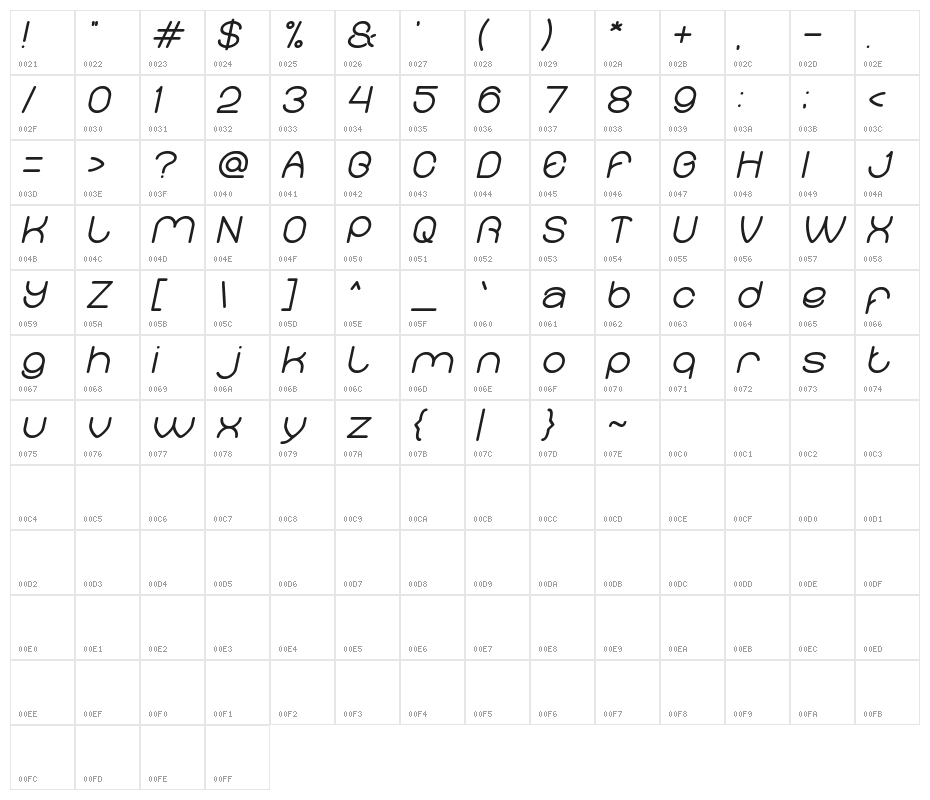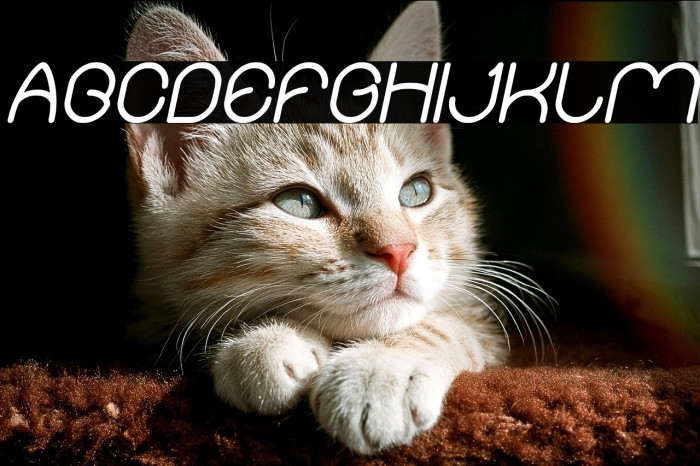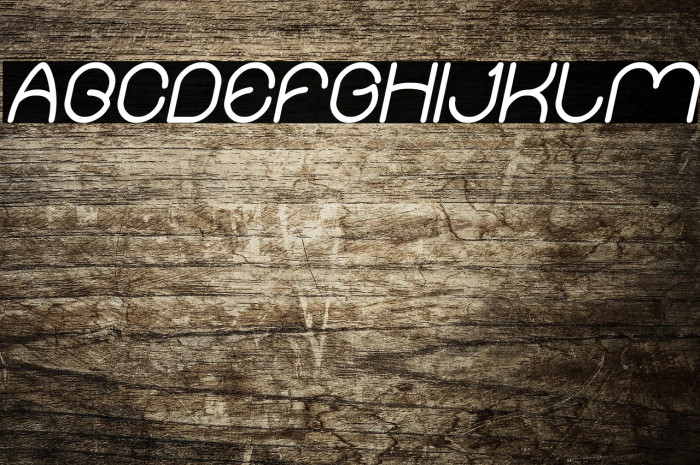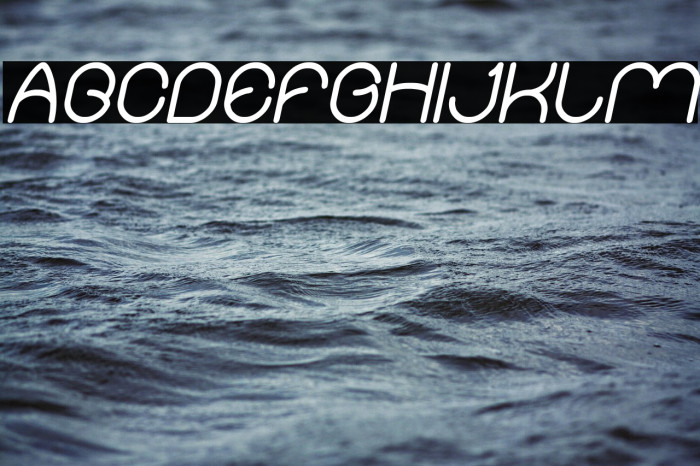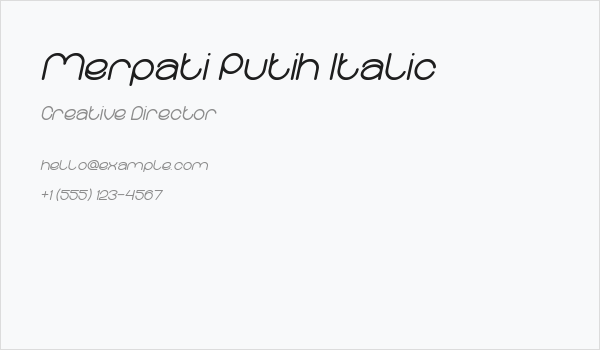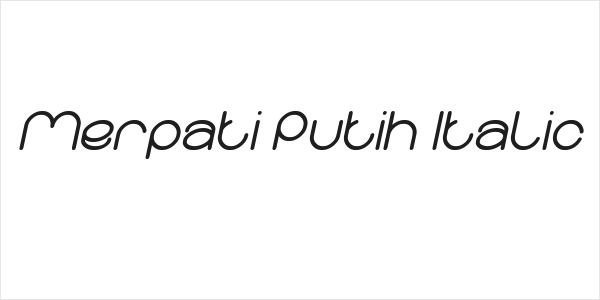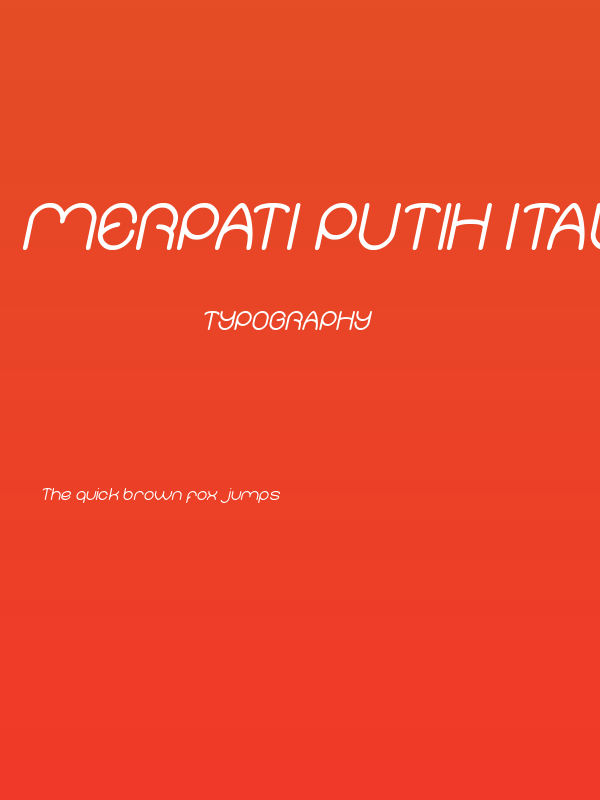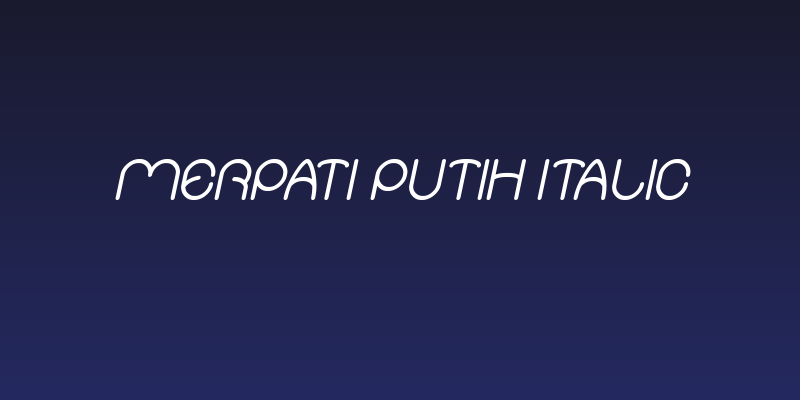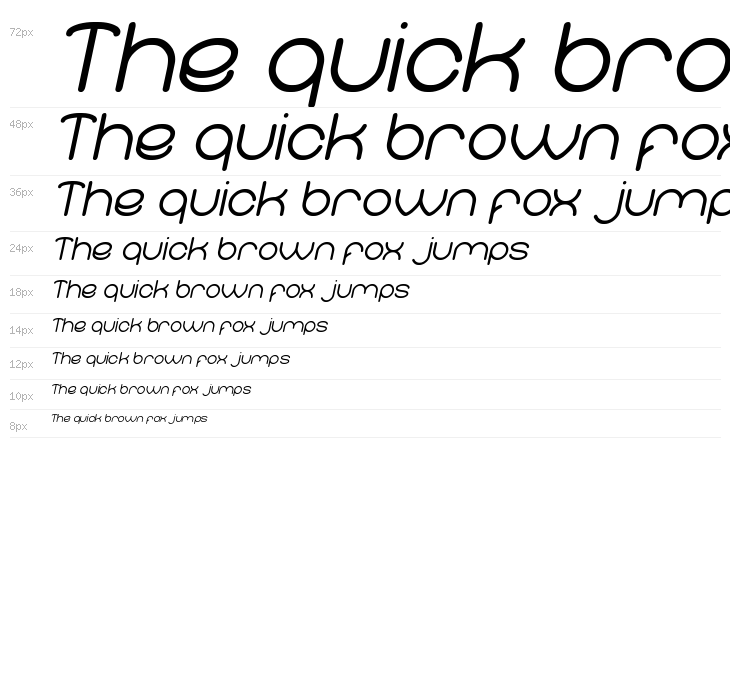
Merpati Putih Italic Font
Merpati Putih Italic Description
This font features a smooth, flowing design with a distinctly italicized style, characterized by its rounded edges and consistent stroke width. The letters exhibit a modern, streamlined appearance, with a slight slant that adds a sense of motion and elegance. The uppercase and lowercase letters maintain a uniform height, contributing to a cohesive look. Numbers and special characters are designed with the same fluidity, ensuring readability and aesthetic harmony. The overall design is clean and uncluttered, making it suitable for various applications where a touch of sophistication is desired.
| Use Case | Logos, Invitations, Digital Media |
| Proposed Projects | Ideal for branding, product packaging, invitations, and digital media where a modern and elegant touch is needed. |